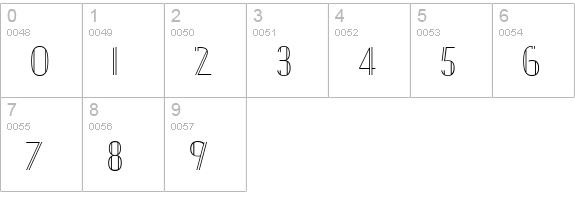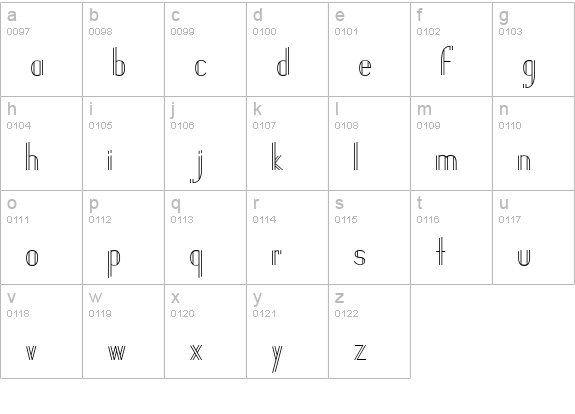
Janesville 51 Font Details
Introducing Janesville 51 font, a versatile and elegant typeface designed to elevate your design projects to the next level. This font exudes sophistication and modernity with its clean lines and stylish curves. Whether you're creating a logo, branding materials, or editorial designs, Janesville 51 font is sure to make a statement. The best part? Janesville 51 font is available for free download at FontsMarket.com. This means you can easily access this high-quality font without any cost, making it an excellent choice for both personal and commercial projects. Don't miss out on the opportunity to enhance your designs with the beautiful Janesville 51 font today!